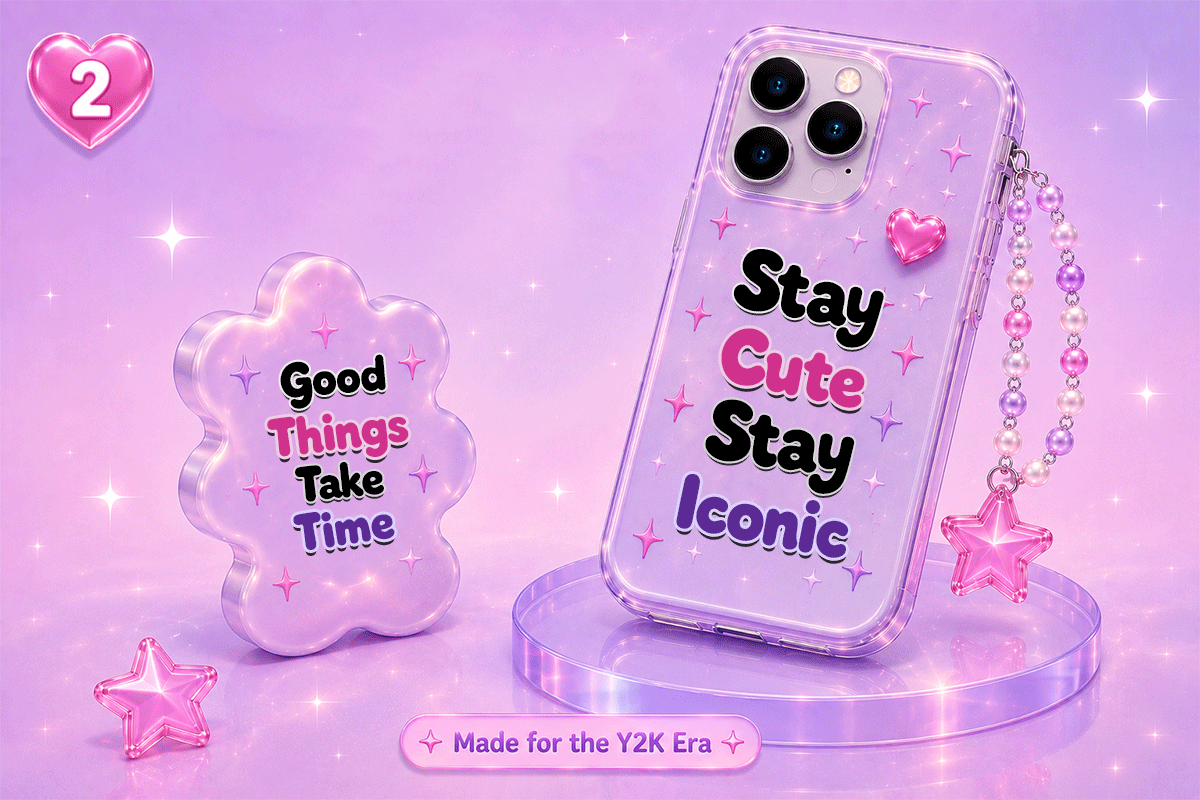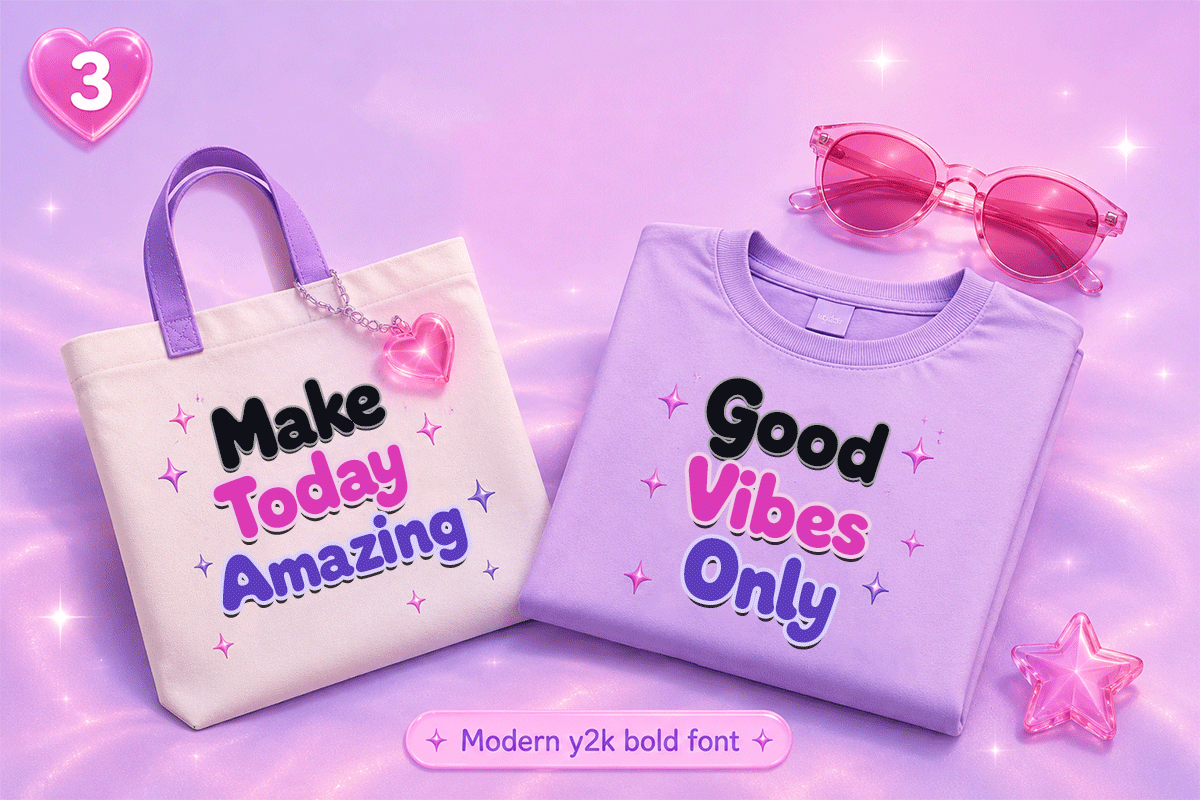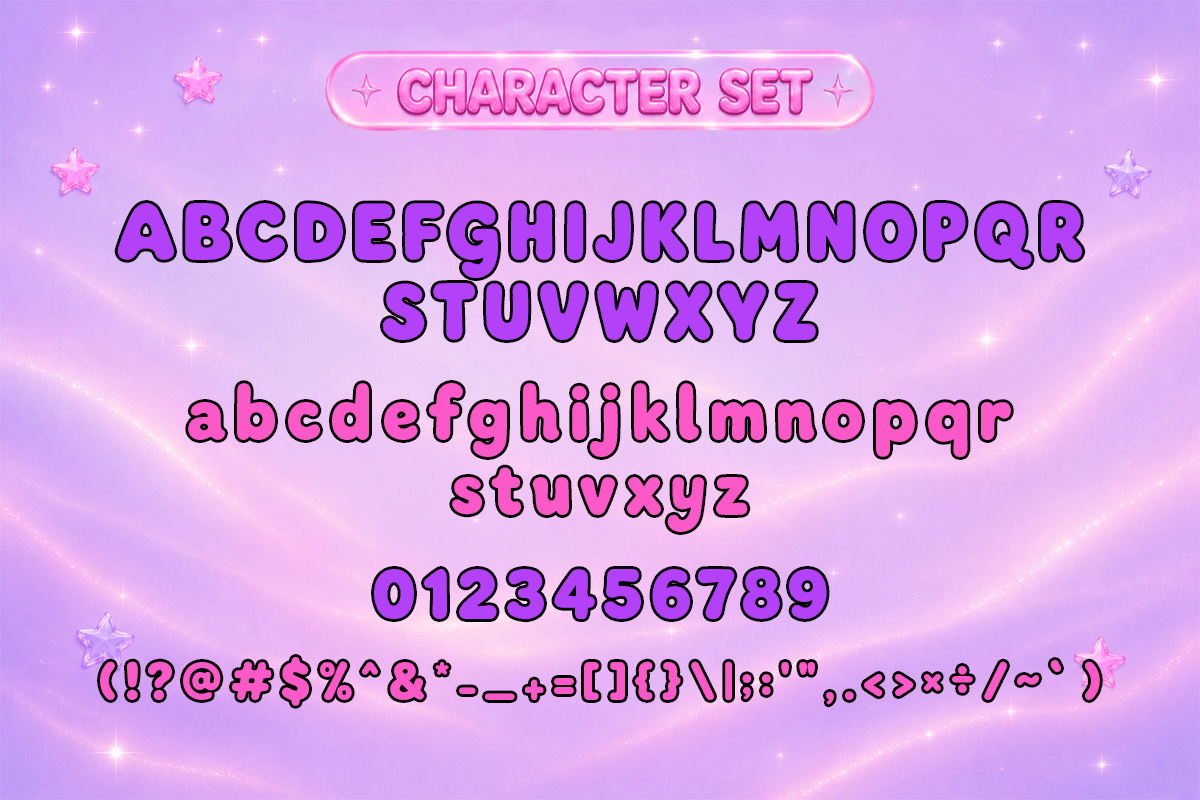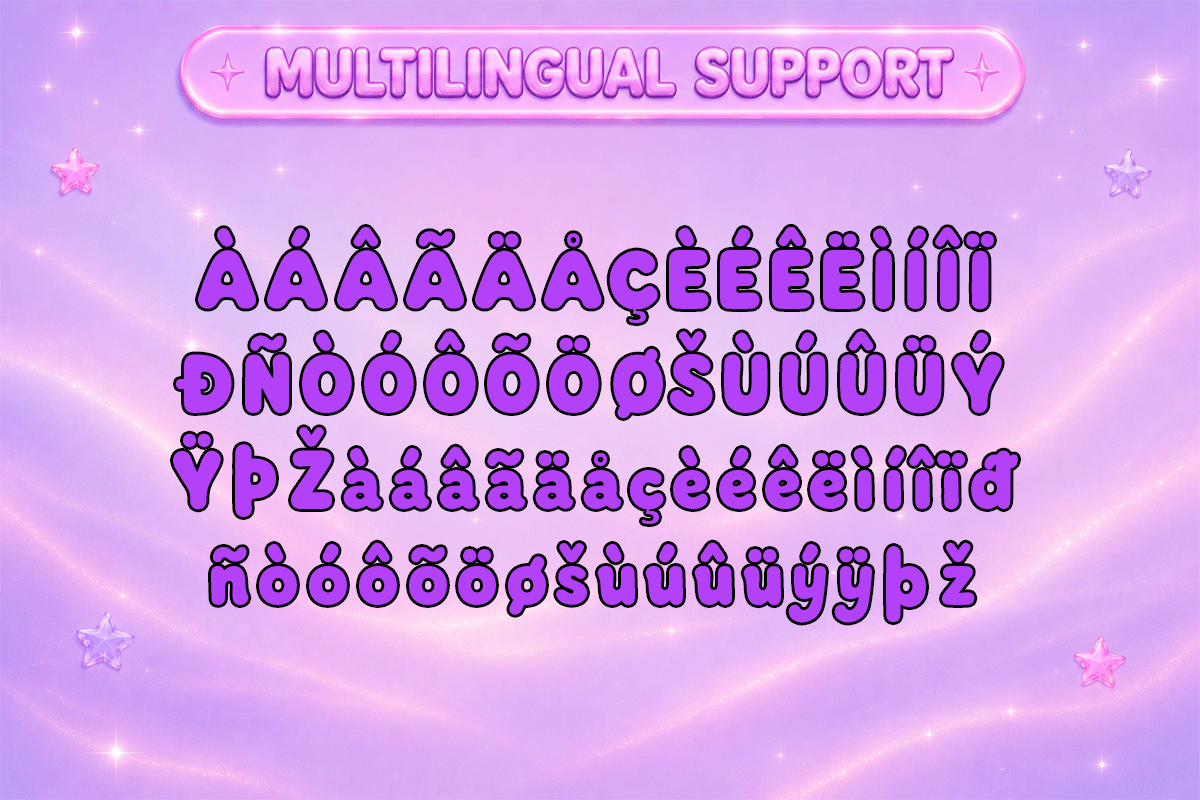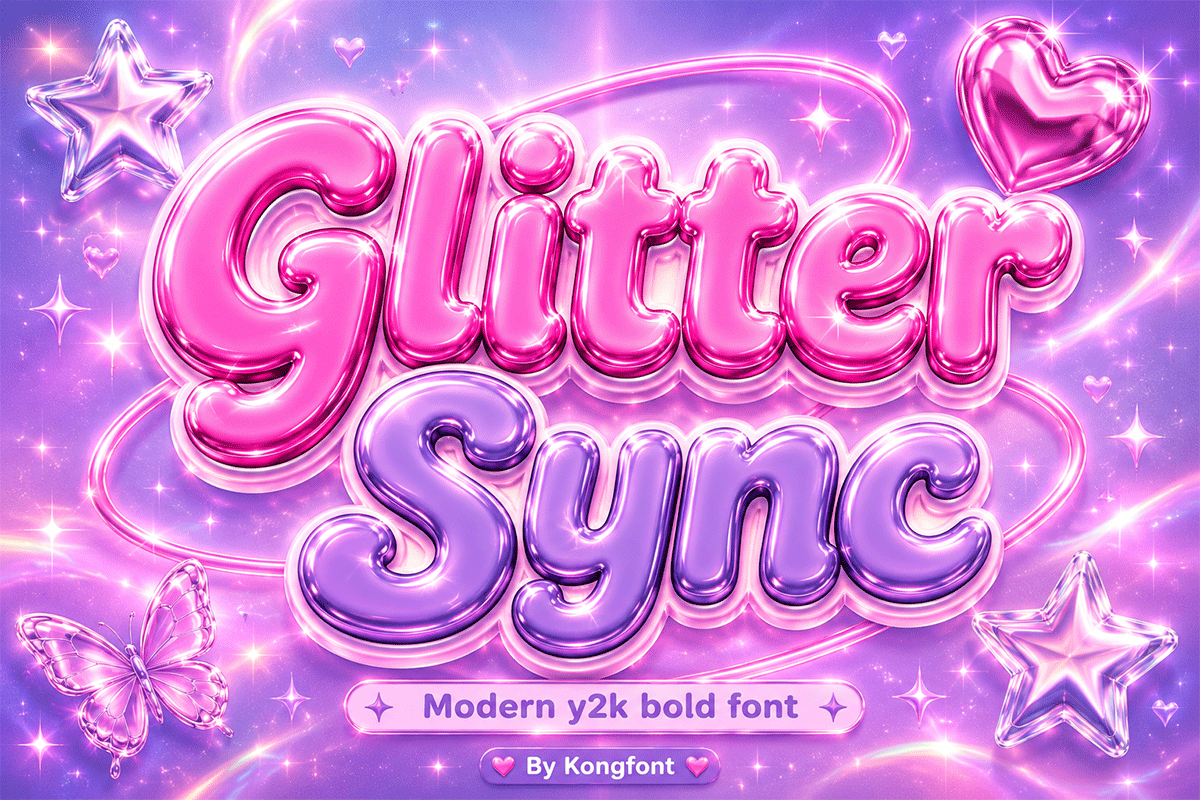
Glitter Sync A Modern Y2K Display Bold Font Part of our Display font collection, Glitter Sync A Modern Y2K Display Bold Font This is a kids' font with a Y2K theme. The font features a bubble shape. Bold and Cute, this font invokes a sense of familiarity and nostalgia in its viewers. Not only that, Glitter Sync A Modern Y2K Display Bold Font is a legible display font, meaning that each letter is easily distinguished and this fact makes Glitter Sync A Modern Y2K Display Bold Font, one of the best choices to be put on signage, posters, information board, etc. Combined with soft pastel colors and a y2k theme, this font can help your cafe or distro's regular customers feel as if they are dining in the y2k era. For a smaller size printing job, this font can also be used for the cover of a cowboy storybook or used in the intro of a western film. Glitter Sync A Modern Y2K Display Bold Font can also be used on small merchandise products from theme-park such as; keychains, refrigerator magnets, and stickers, or you can also print them on items such as t-shirts, jackets, caps, etc. Our collection of Espot & Futuristic fonts is compatible to use as Figma fonts, Canva fonts, Freepik Fonts, and Adobe Fonts]. They also work as Windows Fonts, and Apple Fonts. For your social media needs, you can use and install fonts in our collection of Espot & Futuristic fonts to use as Instagram Fonts, Facebook Fonts, and Twitter Fonts.